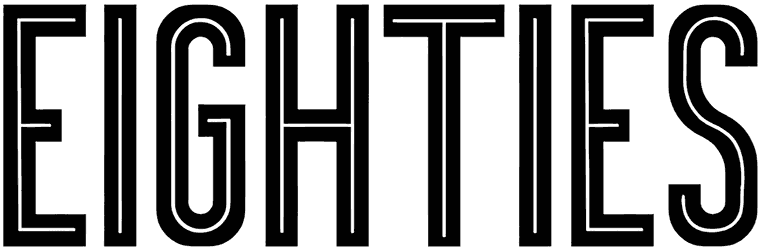
Road Bitch Font
Road Bitch is a retro font that has a very interesting and outstanding ornamental design! The sans serif characters have a 3D style; they include a strong old-fashioned feel with a creative look, especially with the diamonds on them, which is fantastic.
By utilizing Road Bitch your typography will be a real masterpiece! It doesn’t contain lowercase letters. Adding this interesting mafia font to logos, banners, posters, branding, and websites is a brilliant idea.